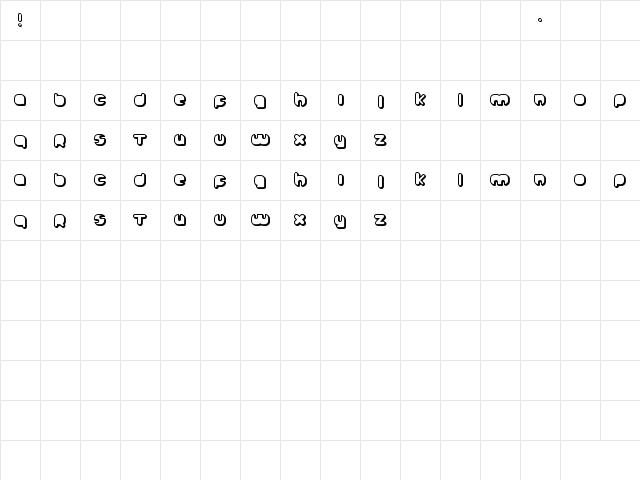
Johanneke Shadow Regular
Design Context for Johanneke Shadow
Johanneke Shadow is built around its visual character rather than neutral utility - its distinctive forms are designed to make an impression at display sizes.
Font Pairing: Pair with a clean neutral sans-serif for body copy to let Johanneke Shadow's character lead without overwhelming the composition.
Pro Tip: Use Johanneke Shadow exclusively at display sizes - it was designed to be seen, not read at length. Let a neutral companion handle body copy.